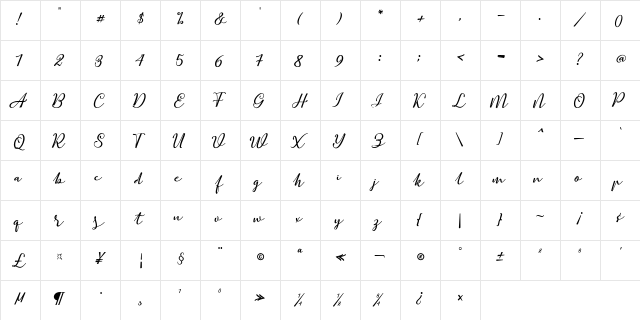
online Regular
Regular · afredo.fk Zulfikar Ali ·
DesignerZulfikar Ali
Design Context for online Typeface
online is a composed and adaptable typeface that performs quietly and consistently across a wide range of design contexts.